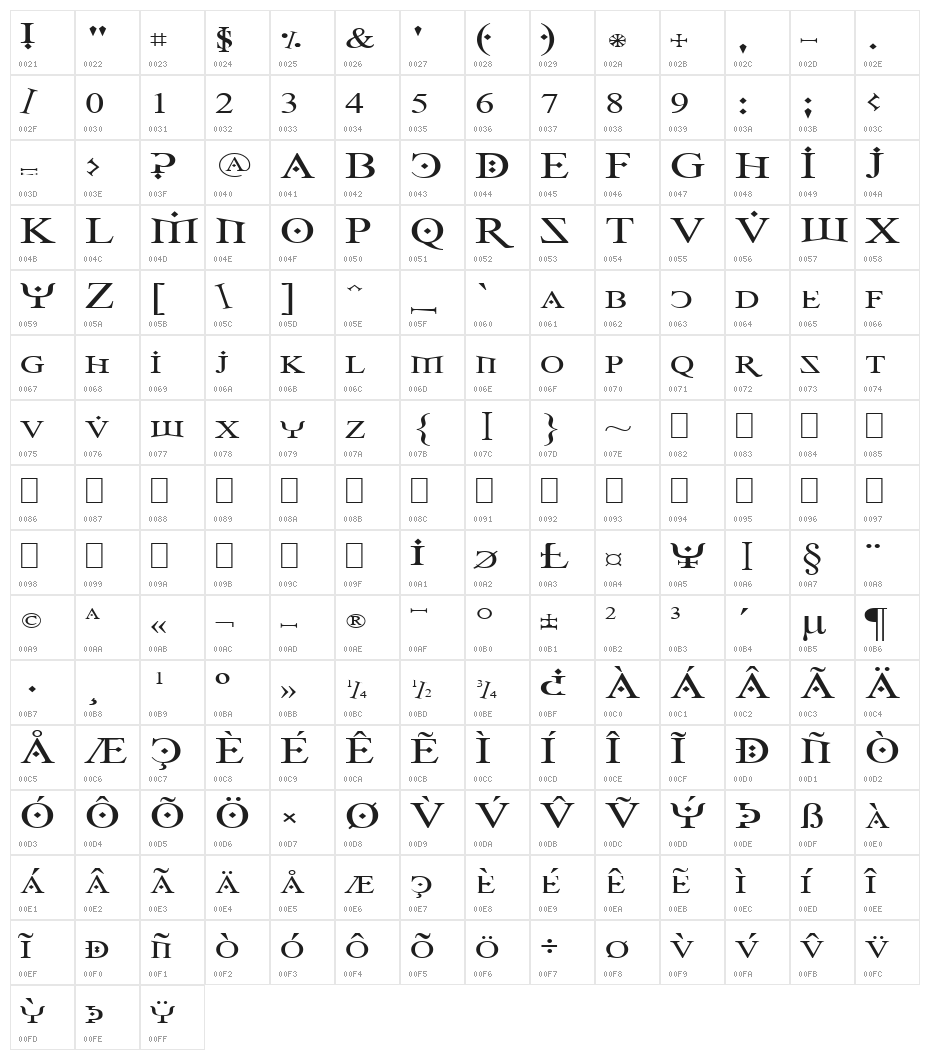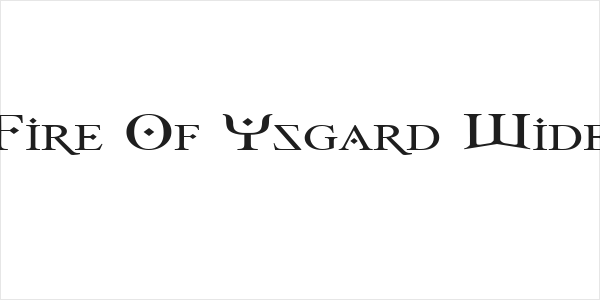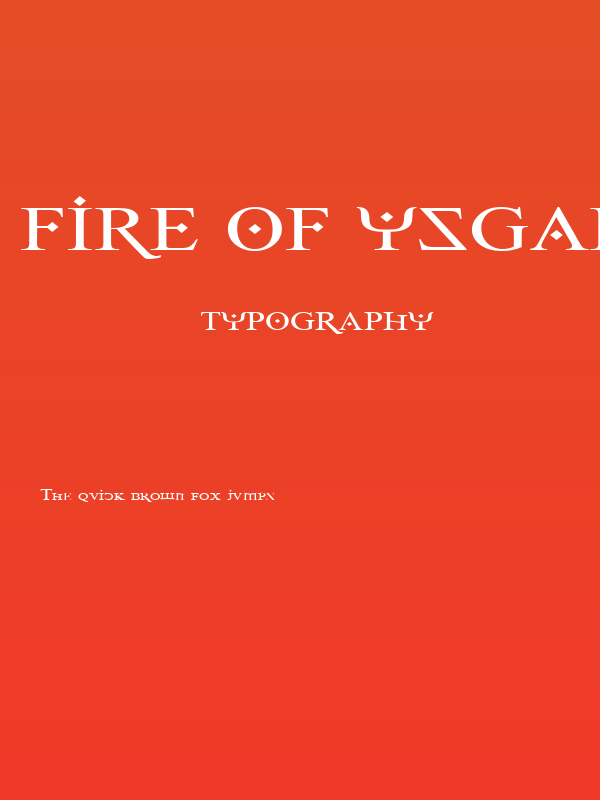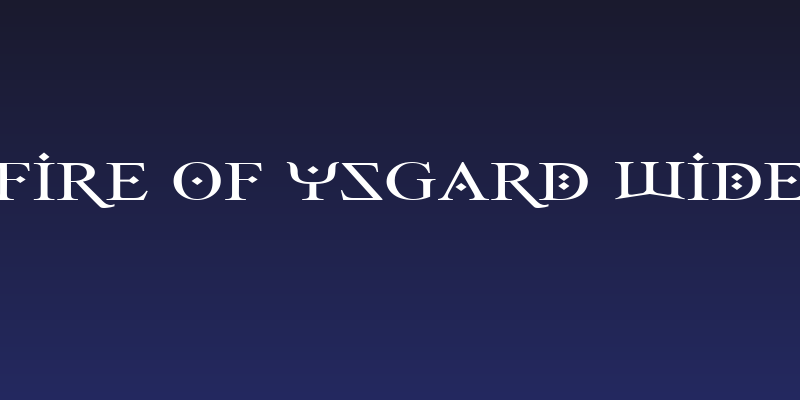
Fire Of Ysgard Wide Font
Fire Of Ysgard Wide Description
This font features a unique blend of modern and ancient styles, characterized by its sharp, angular serifs and distinct geometric shapes. The uppercase letters exhibit a bold presence with intricate details, such as the pointed edges and unusual cuts, giving it a mystical and adventurous feel. The lowercase letters maintain a consistent style, complementing the uppercase with their own subtle curves and angles. Numbers are clear and legible, designed with a similar aesthetic to the letters. Special characters are creatively styled, adding to the font's overall distinctive appearance. This typeface is perfect for projects that require a touch of fantasy or historical flair, while still maintaining readability.
| Proposed Projects | Ideal for fantasy book covers, game titles, and themed event posters. |